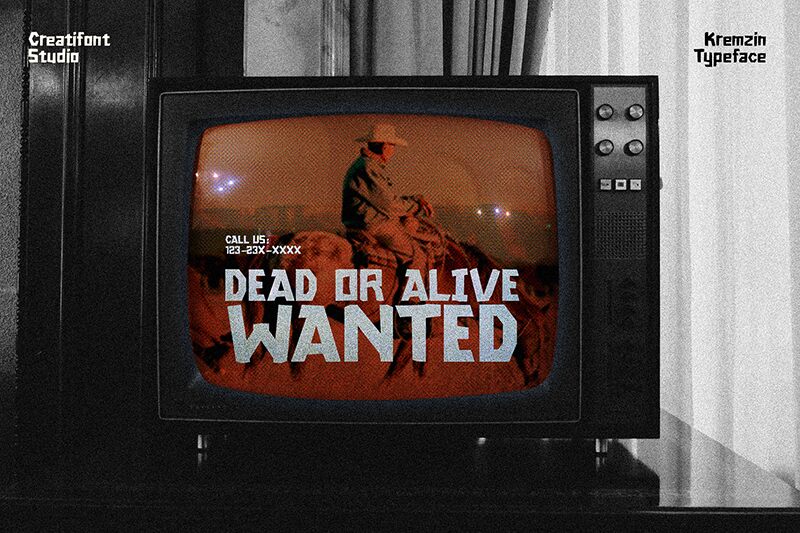
CF Kremzin Demo Regular
CF Kremzin font by Creatifont Studios immediately captures eyes with its uppercases and even more interesting lowercases. Its comic-inspired style displays capital letters drawn in fun forms that look trendy, unusual, and different than the rest of the market's modern typefaces. Curves are used rather frequently, and the width here is on the wider side.
Use every letter to your advantage when building texts for each event poster, book cover, or package design you work on. CF Kremzin suits other projects too like logo designs, apparel items visualizations, official publications branding and advertising (business cards etc.), websites of any kind (blogs or professional sites), quotes framing among others.